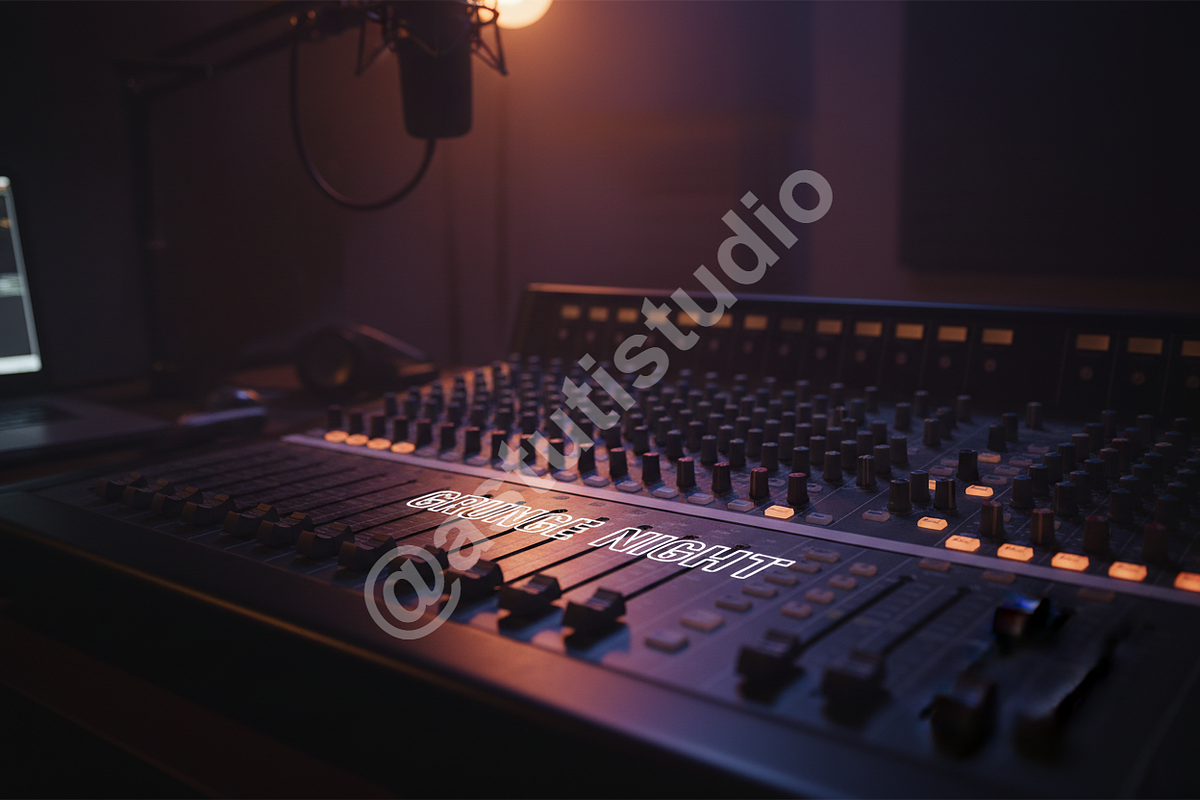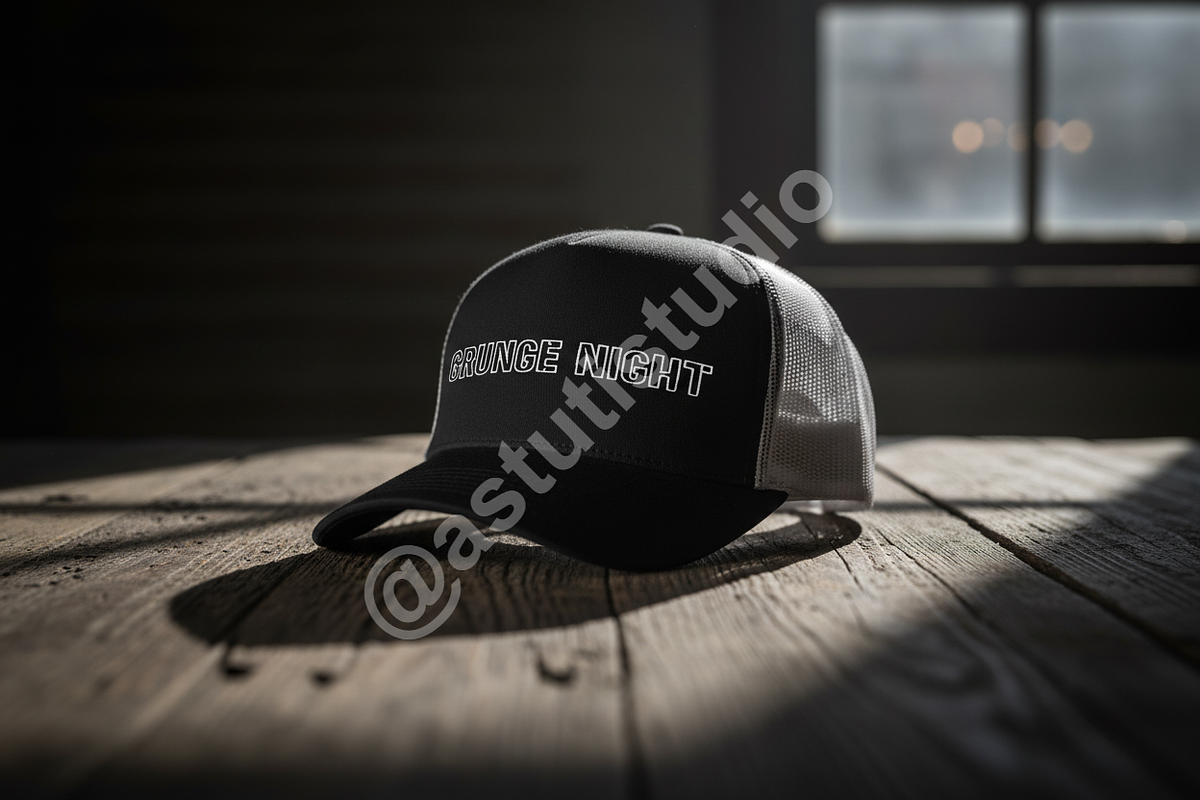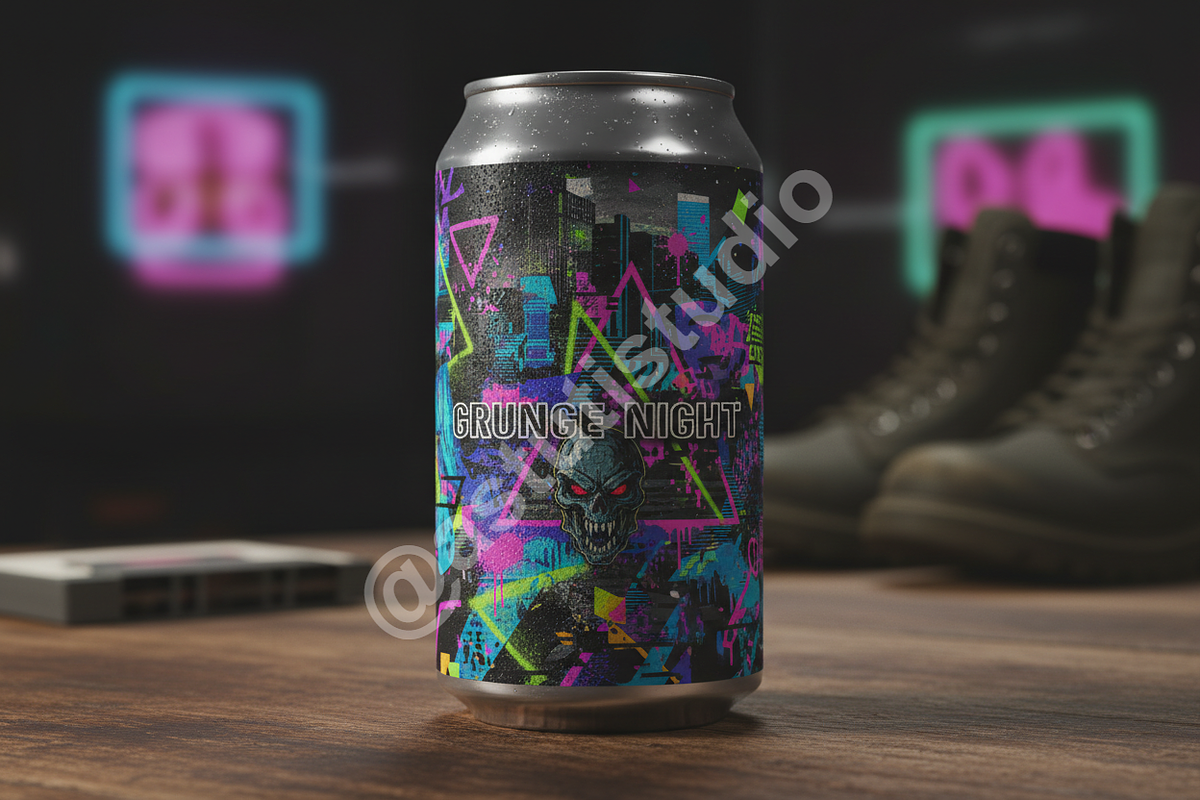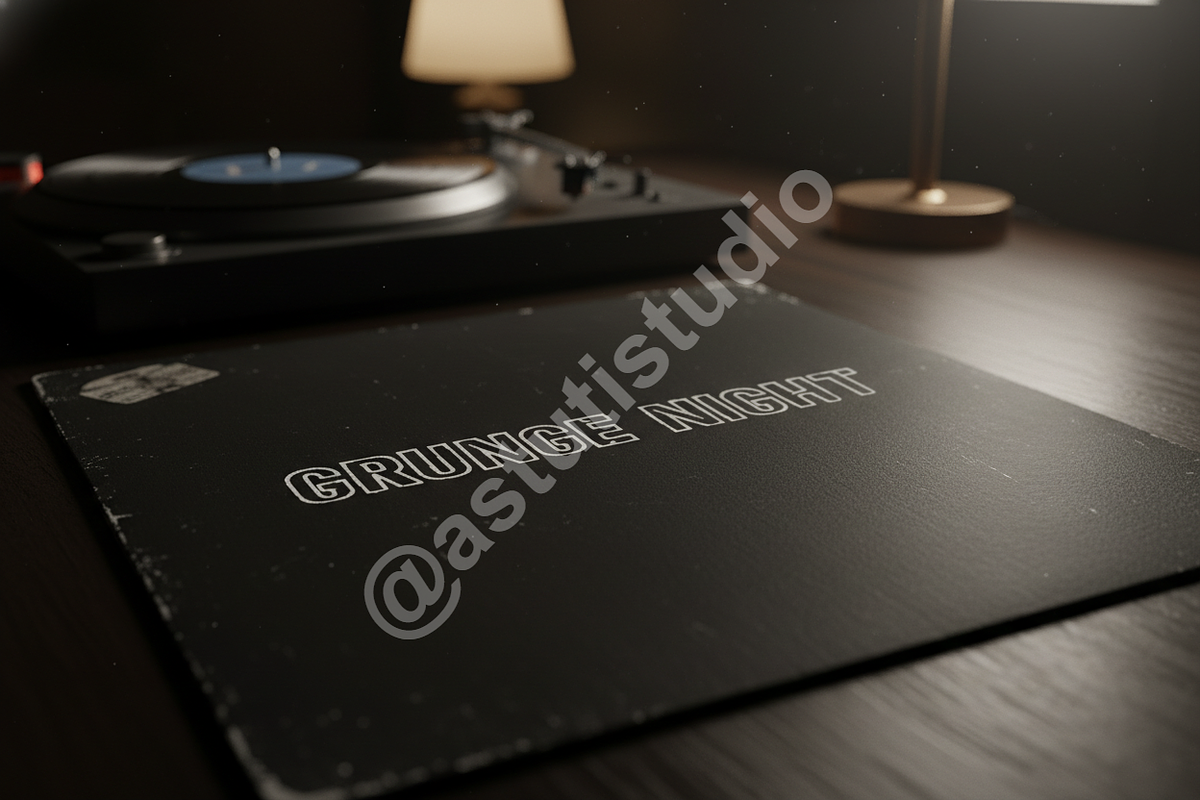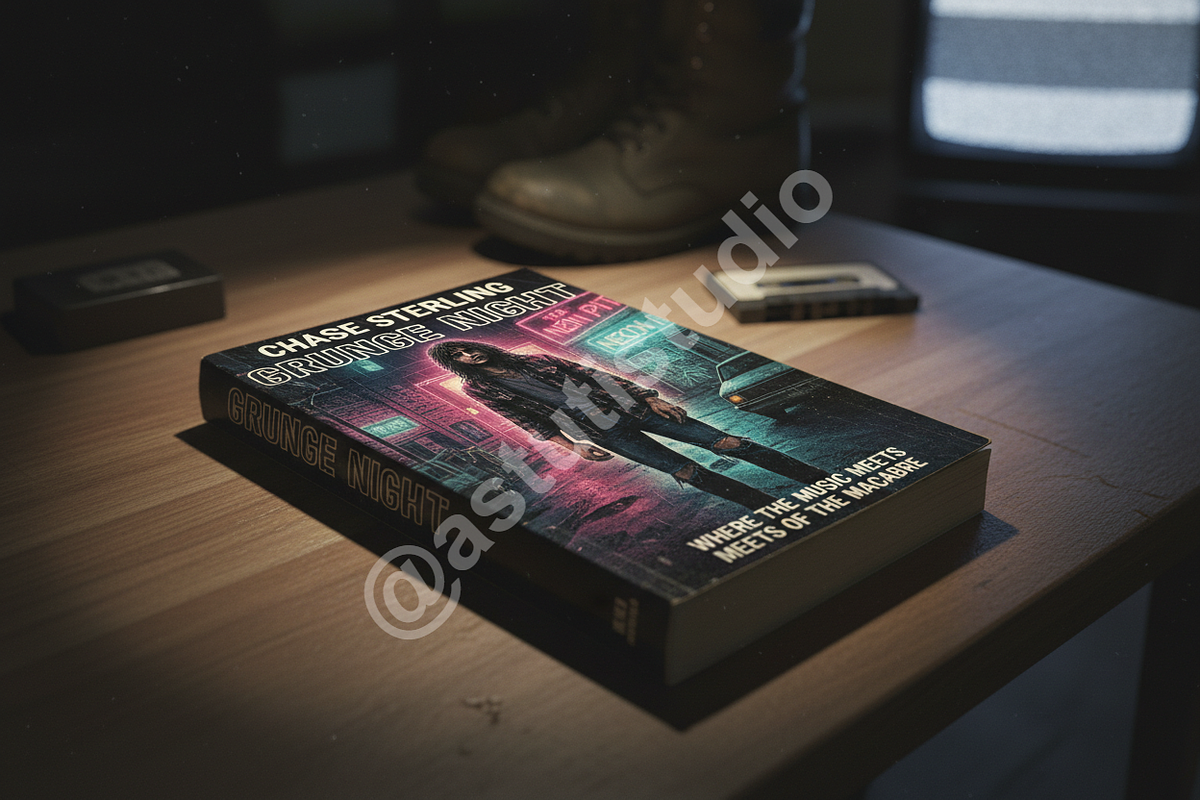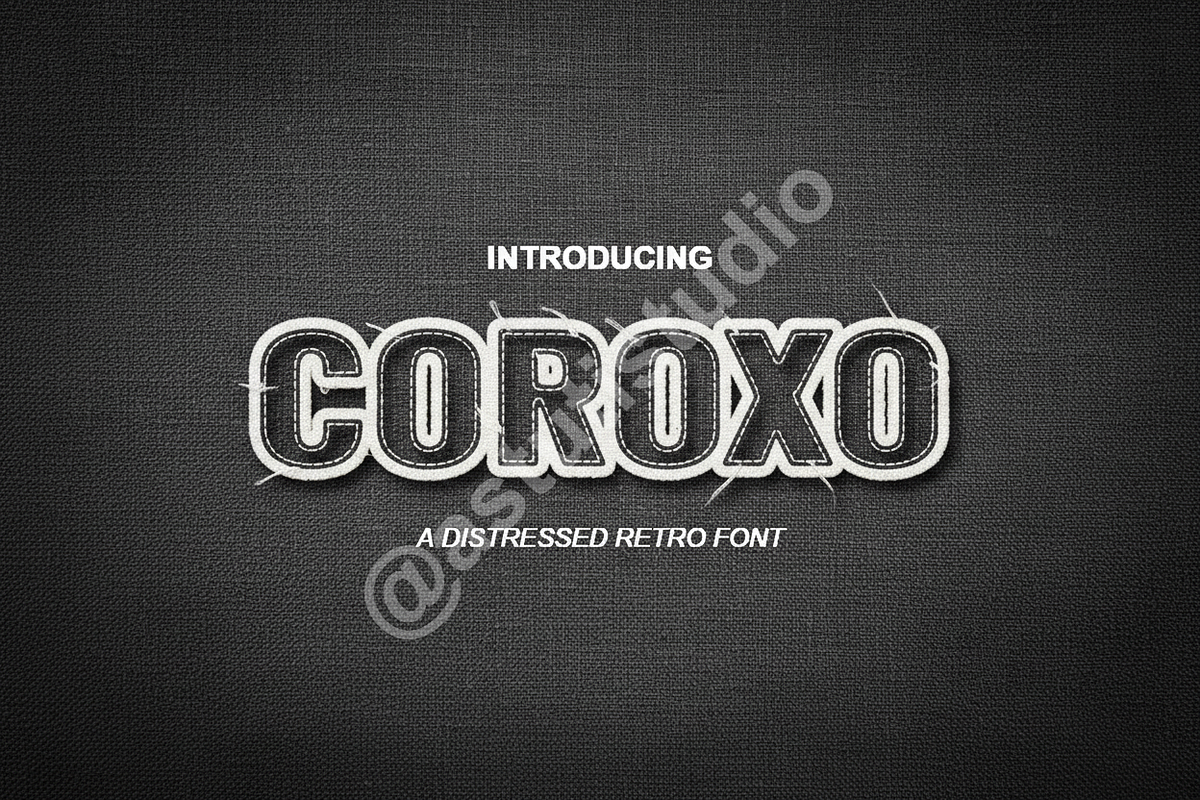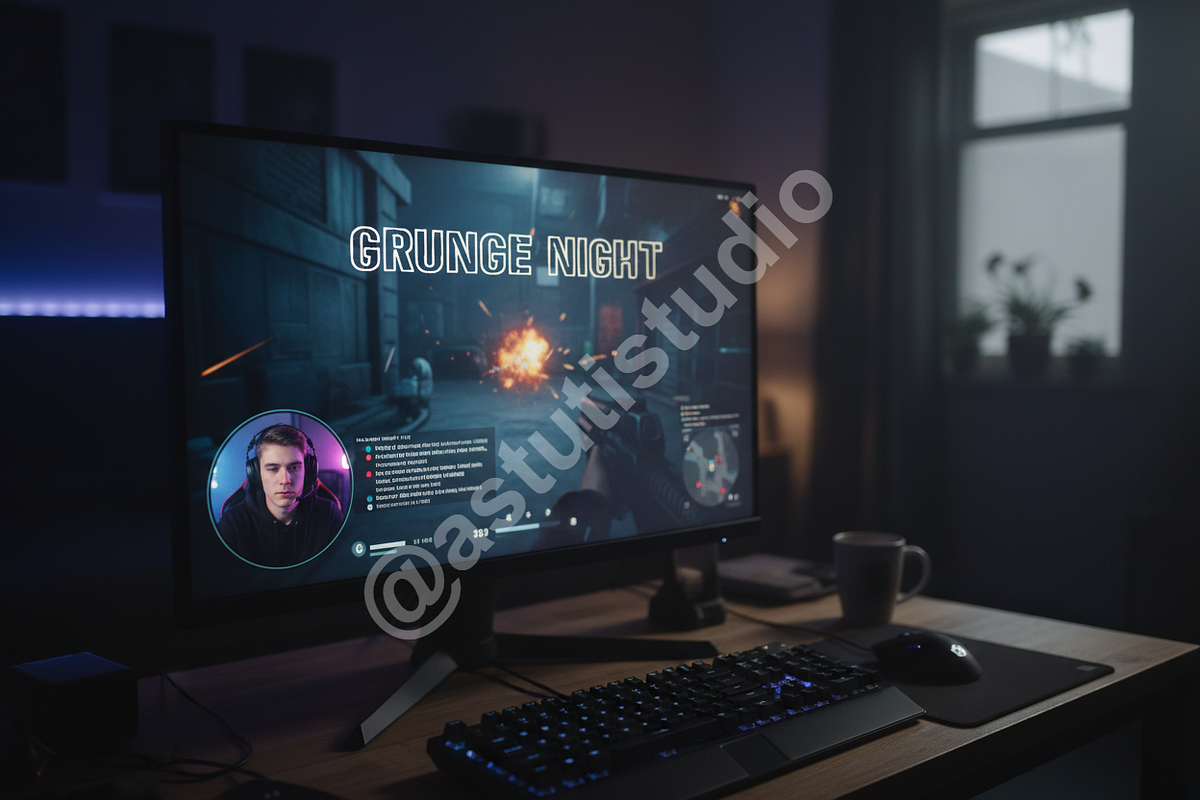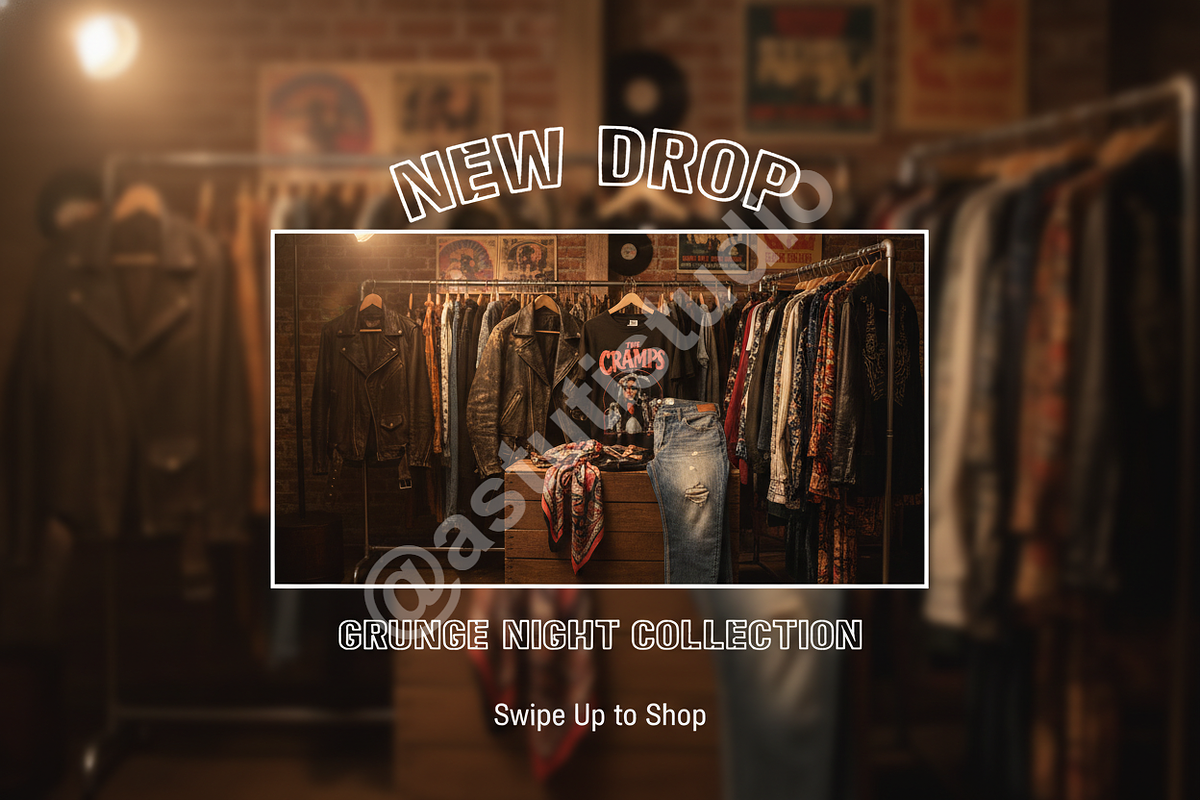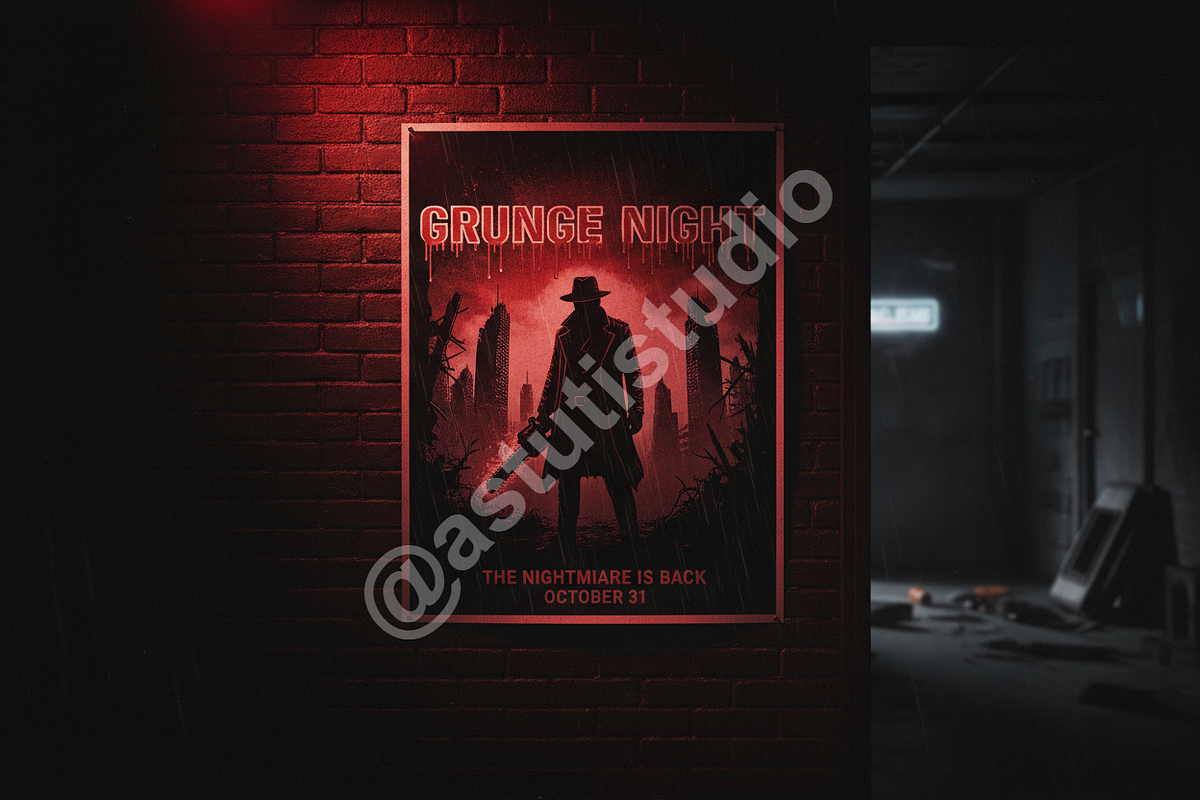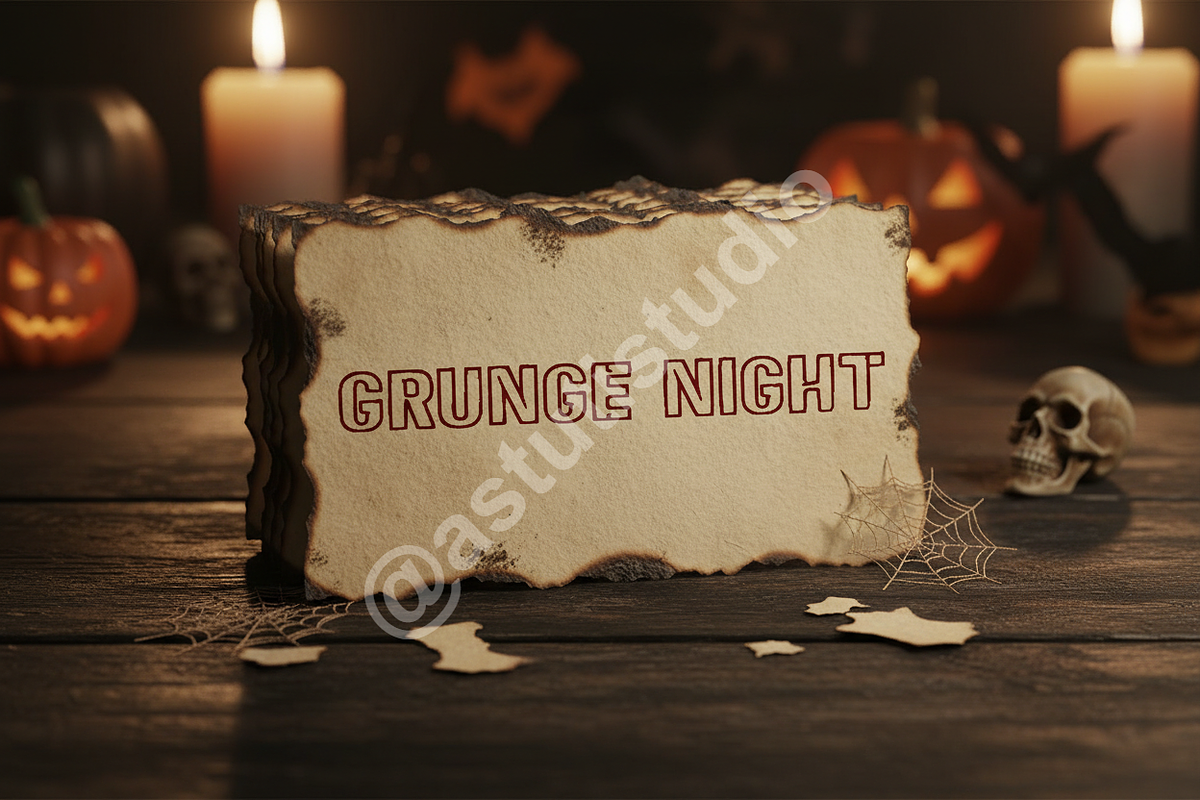
Coroxo | The Luxury Modern Serif Typ
COROXO: THE DEFINITION OF MODERN LUXURY.
Coroxo is a meticulously crafted serif typeface designed for the discerning creative. It strikes a perfect balance between classic sophistication and contemporary minimalism, ensuring your project exudes timeless elegance and premium quality. It is the definitive choice for sophisticated visual communication, making it ideal for luxury branding campaigns, high-impact editorial layouts, and elegant social media aesthetics.
- Advanced OpenType Features: Includes elegant discretionary ligatures and stylistic alternates to customize your headlines.